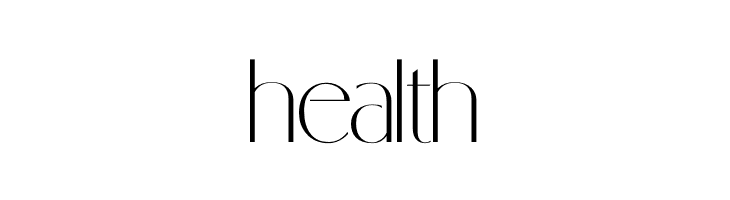
FlyTrap Extended Font
Font by Mickey Rossi - www.subflux.com
A bold, modern font with geometric lines and strong presence.
RetroSuperSkinny Font
Font by Mickey Rossi - www.subflux.com
A sleek, ultra-thin font with high contrast and elongated forms.
BarBender Bold Font
Font by Mickey Rossi - www.subflux.com
A bold, geometric sans-serif font with a modern, industrial style.
College Boy Font
Font by Mickey Rossi - www.subflux.com
A bold, collegiate-style serif font with strong, block-like serifs.
NotANumber Font
Font by Mickey Rossi - www.subflux.com
A bold, modern font with thick, uniform strokes and geometric shapes.
DeutschGotisch Font
A bold Blackletter font with intricate, angular letterforms and a historical feel.
PlakatFraktur Font
A bold and ornate Blackletter font with high contrast and intricate details.
Highlights Condensed Font
Font by Mickey Rossi - www.subflux.com
A bold, condensed font with a textured, distressed vintage style.
Fleetwilly Font
Font by Mickey Rossi - www.subflux.com
A bold, italicized font with a dynamic and energetic style.
FlandersRide Italic Font
Font by Mickey Rossi - www.subflux.com
A bold, italicized font with high contrast and dynamic slant.
FlandersRide Font
Font by Mickey Rossi - www.subflux.com
A bold, high-contrast serif font with a modern and impactful style.
Quadlateral Font
Font by Graham Meade - GemFonts
A geometric, modern font with clean lines and excellent legibility.
GanzGrobeGotisch Font
A bold, dramatic Blackletter-style font with intricate detailing.
Pastas Black Font
A bold, 3D geometric font with a playful and dynamic style.
GanzGrobeGotisch-UltraBlack Font
Font by Dieter Steffmann
A bold, intricate Blackletter font with dramatic, angular letterforms.